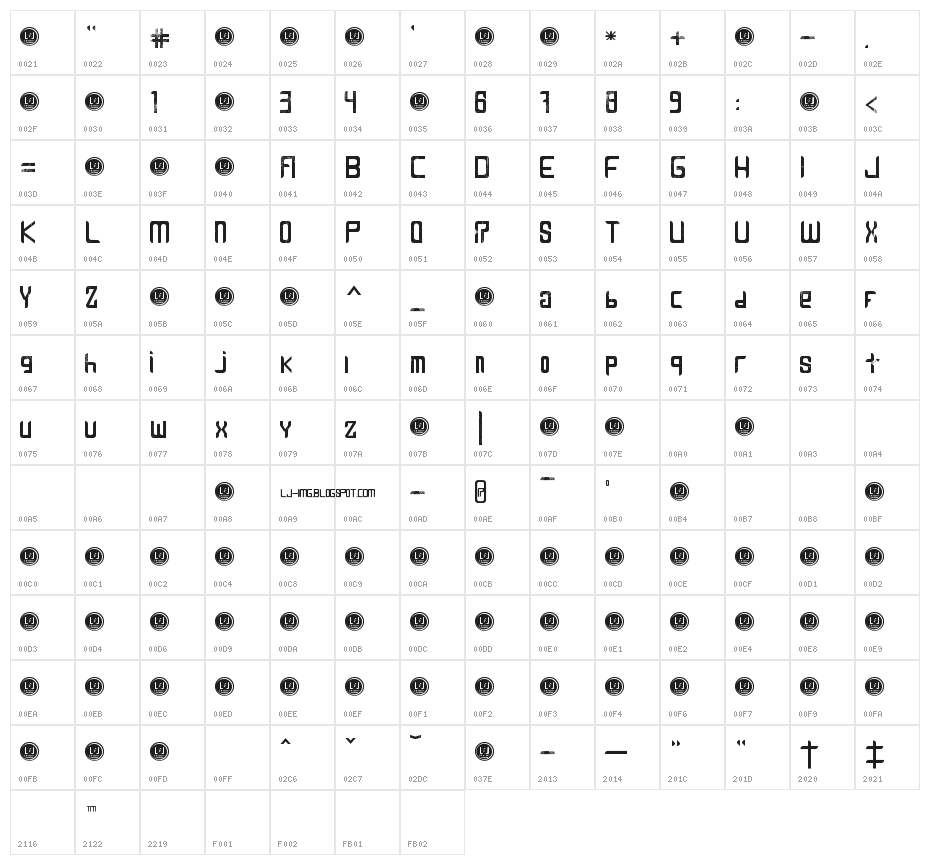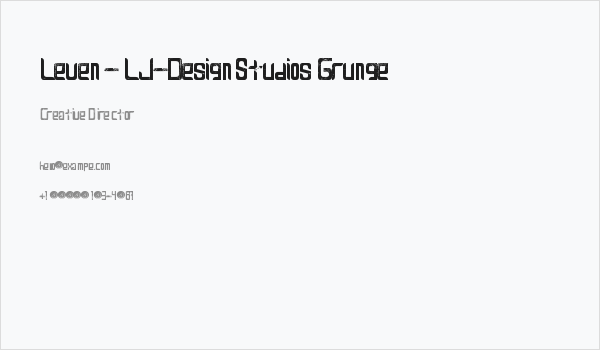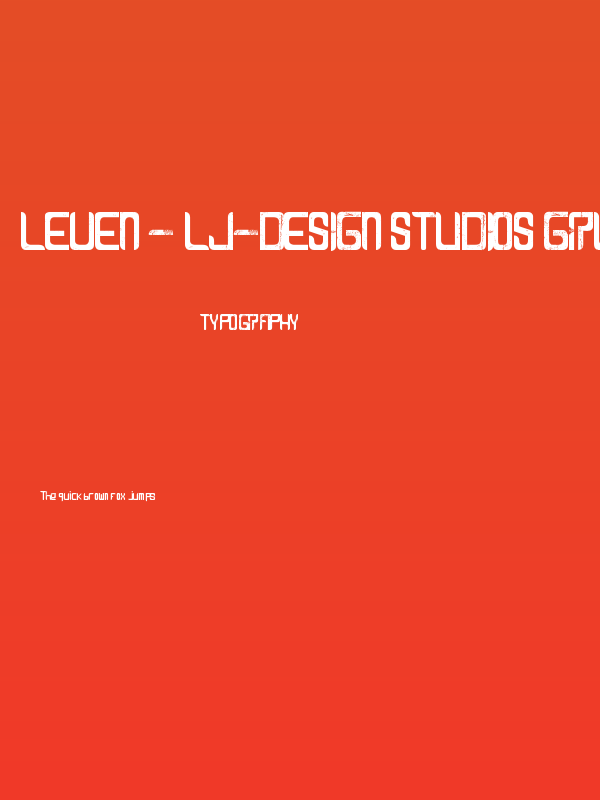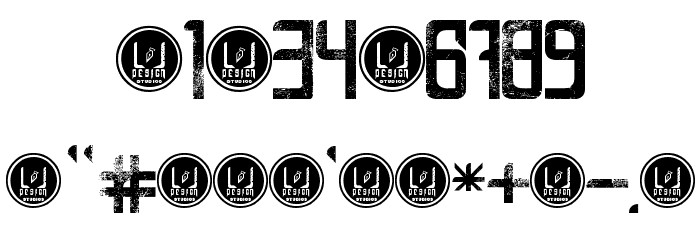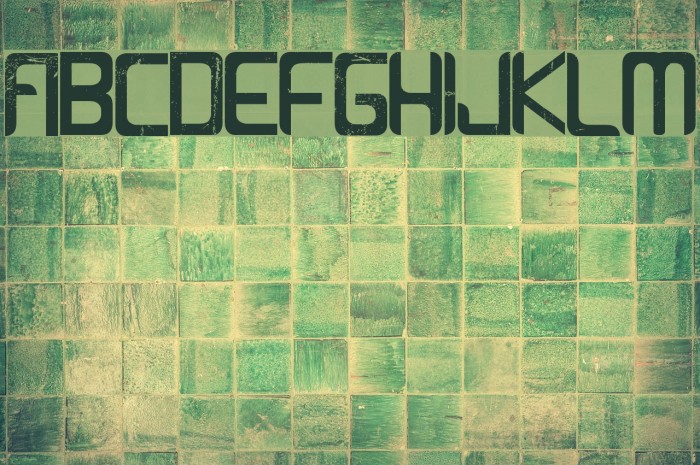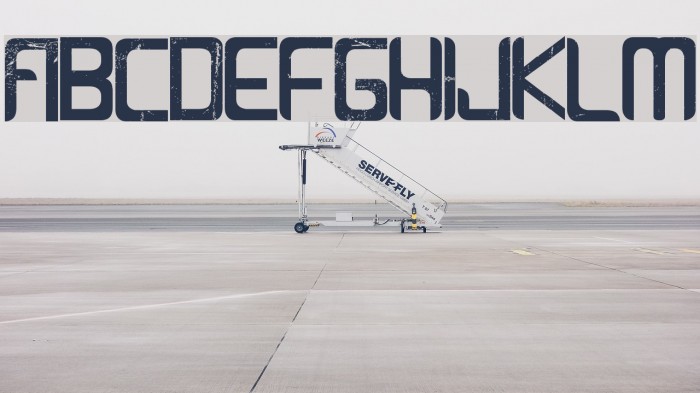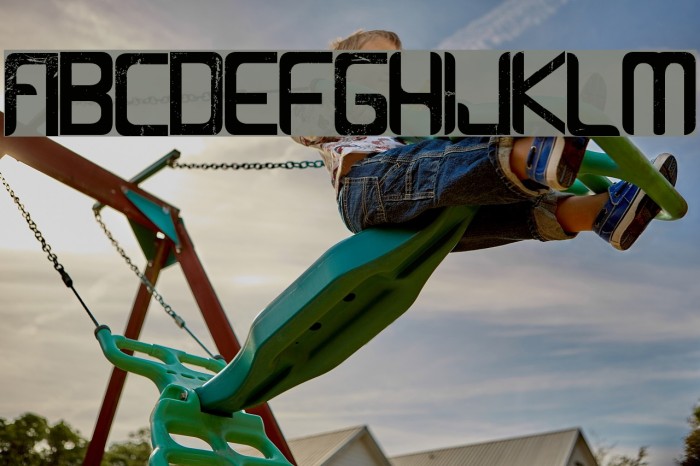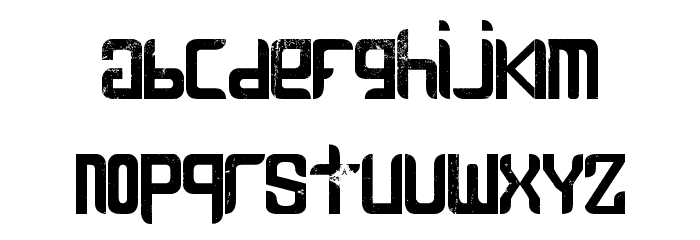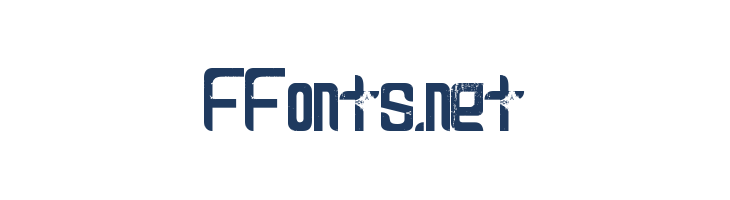
Leven - LJ-Design Studios Grunge Font
Leven - LJ-Design Studios Grunge Description
This font features a bold, distressed style with a grunge aesthetic, characterized by its rough, textured appearance. The uppercase and lowercase letters maintain a consistent width, giving a uniform look despite the irregular, worn edges that add a sense of ruggedness. The numbers and special characters follow the same design, ensuring cohesion across all elements. The font's unique style makes it stand out, with a modern yet vintage feel that can evoke a sense of nostalgia or edginess. The character spacing is normal, allowing for readability while maintaining the font's distinctive style.
| Overall Style | Grunge, Vintage, Modern |
| Proposed Projects | Ideal for music album covers, posters, branding for edgy or alternative products, and any design needing a bold, gritty aesthetic. |